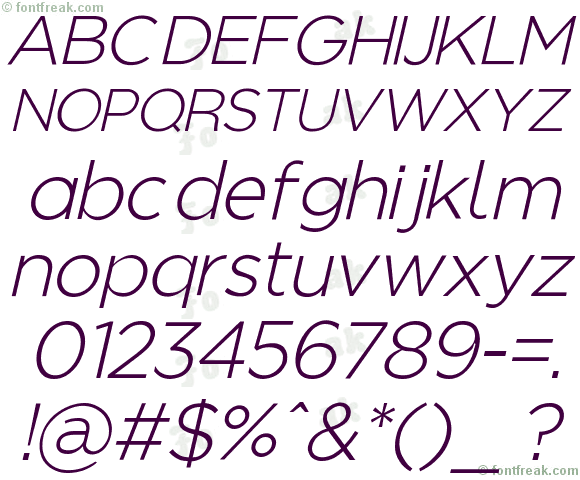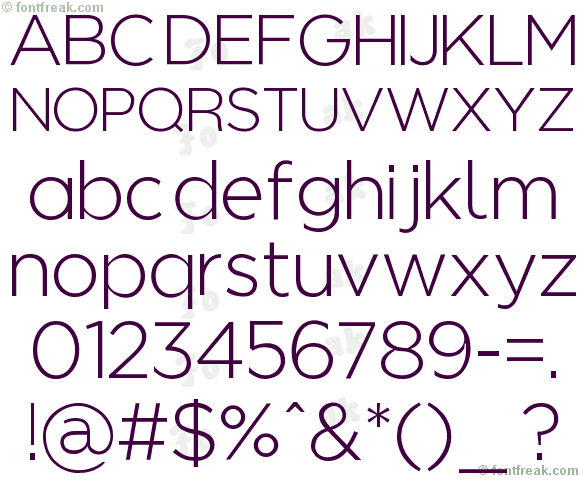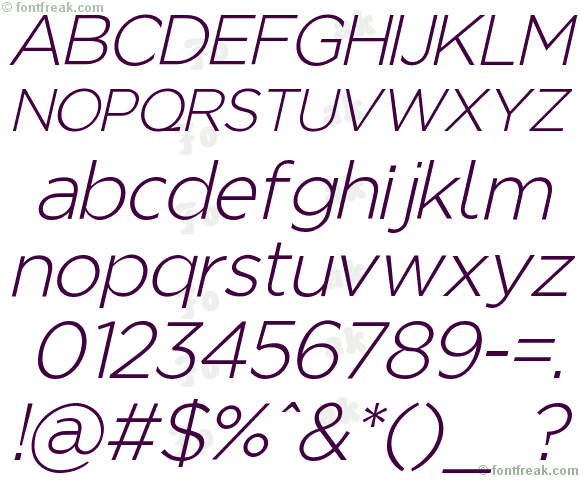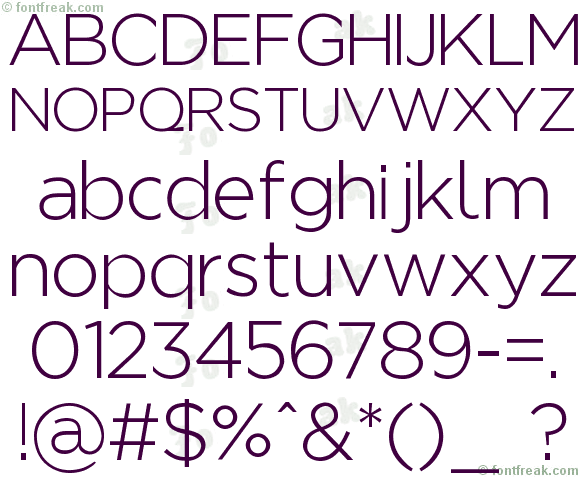
Regencie Light
Regencie Light Alt Oblique
Regencie Light Alt
Regencie Light Oblique
About Regencie Light
Regencie Light, designed by Alvaro Thomaz, is a sophisticated sans-serif font that beautifully balances elegance and readability. This font is characterized by its clean lines and subtle curves, showcasing a light stroke weight that exudes a sense of modernity. With its minimal contrast and generous spacing, Regencie Light makes for a versatile typeface suitable for various design applications. The understated elegance of this font is complemented by its oblique style, adding a touch of dynamic flair without overwhelming the viewer.
This font excels in a multitude of use cases, making it an excellent choice for graphic designers and content creators alike. It is particularly well-suited for wedding invitations, where its refined aesthetics can set a romantic tone. Additionally, Regencie Light shines in restaurant menus, providing a sophisticated look that enhances the dining experience. It is also perfect for movie posters, where it can convey a sense of modern storytelling while remaining easy to read. Small business owners can utilize this font in branding materials, ensuring their messaging is both clear and stylish.
What sets Regencie Light apart is its ability to maintain clarity and elegance across various mediums. Whether used in print or digital formats, this font stands out for its modern aesthetic and versatility, making it an essential addition to any designer's toolkit. Don’t miss the chance to elevate your projects with the Regencie Light font free download.